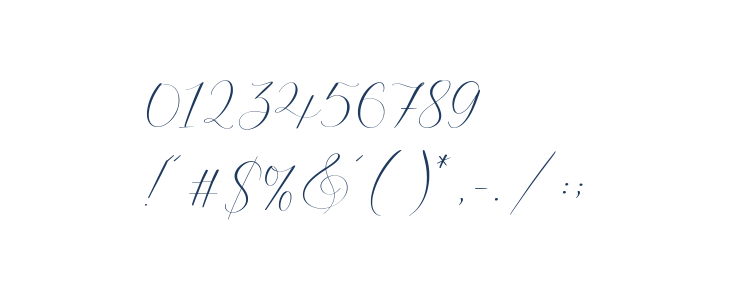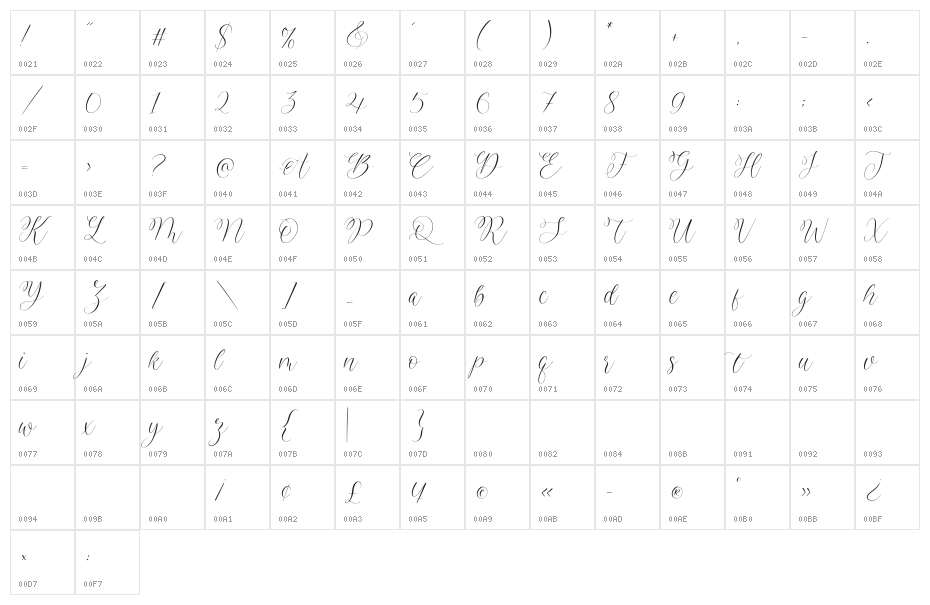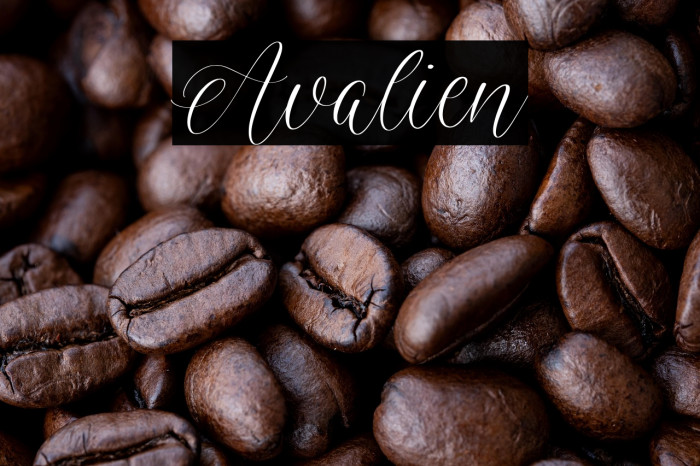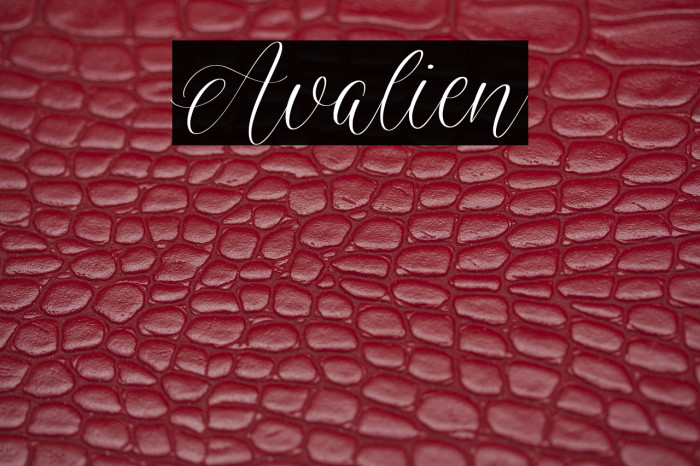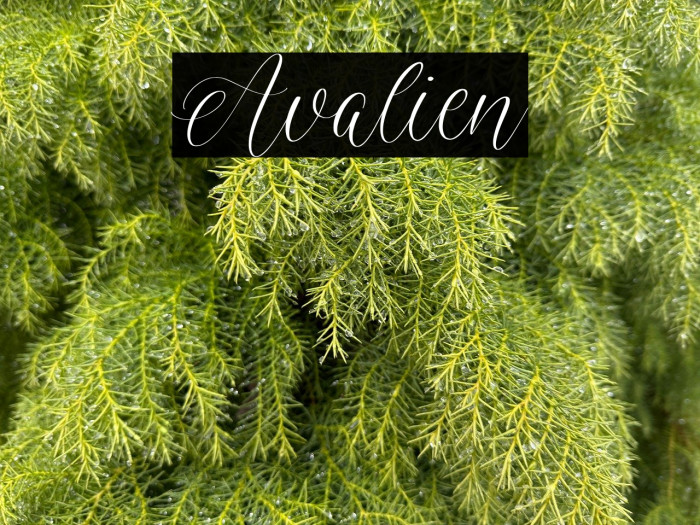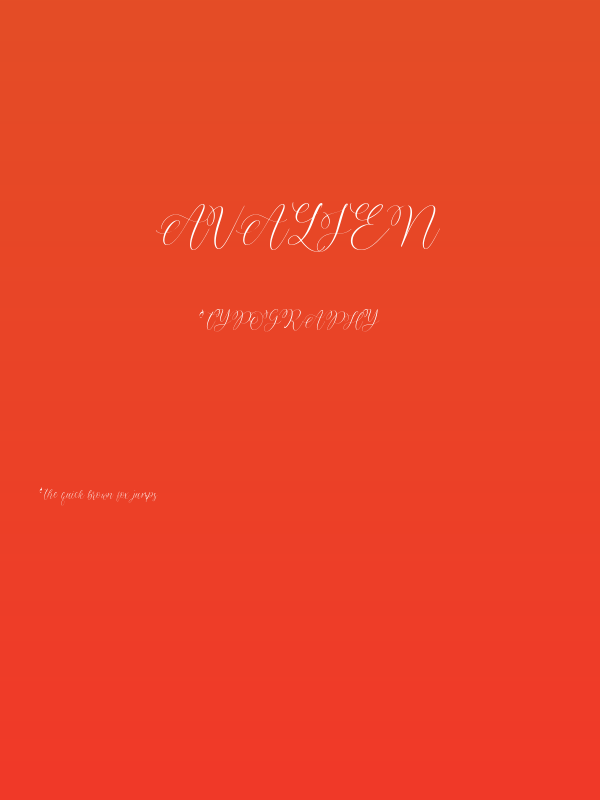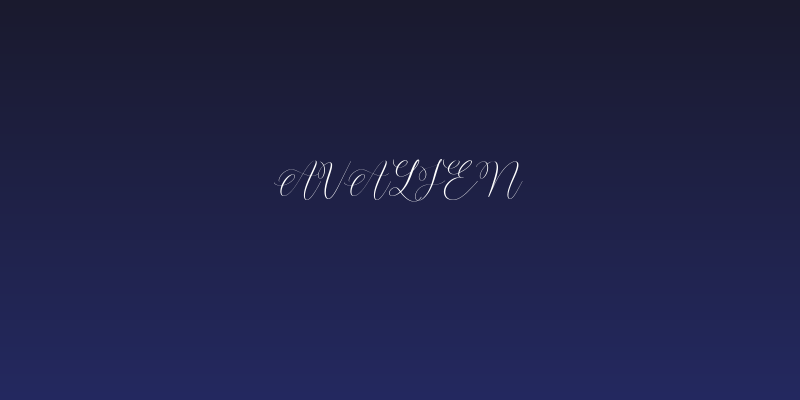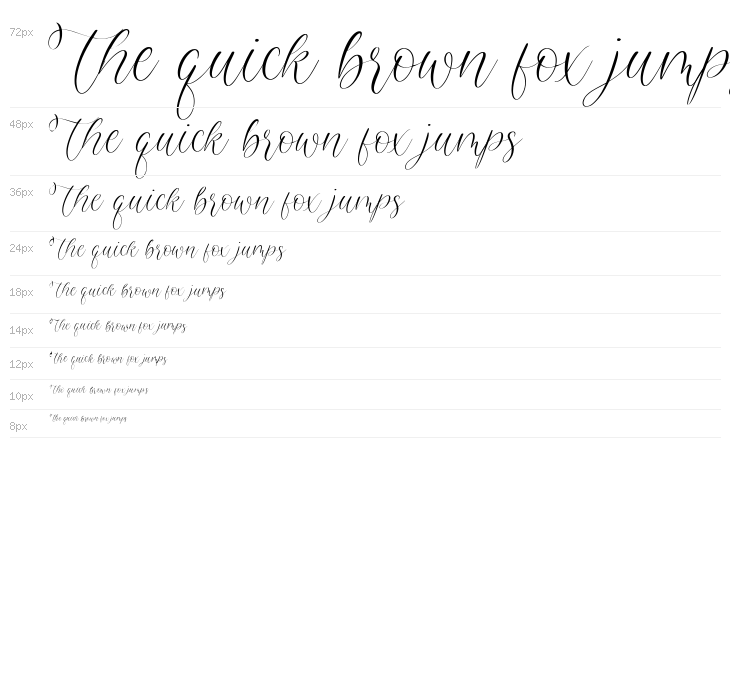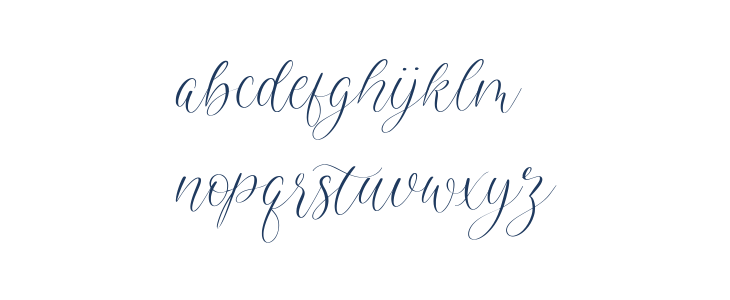
Avalien Font
Avalien Description
This elegant script font features a flowing, cursive style with intricate swashes and loops that give it a sophisticated and graceful appearance. The characters are delicately crafted, with thin, consistent strokes that create a sense of fluidity and movement. The uppercase letters are particularly ornate, with elaborate flourishes that extend beyond the baseline and cap height, adding a touch of drama and flair. The lowercase letters maintain a more restrained elegance, with gentle curves and a slightly slanted orientation. The numerals and special characters are designed to complement the overall aesthetic, maintaining the same level of detail and refinement. This font exudes a sense of luxury and is perfect for projects that require a touch of class and sophistication.
| Overall Style | Elegant, Sophisticated |
| Proposed Projects | Ideal for wedding invitations, luxury branding, elegant stationery, and high-end packaging. |